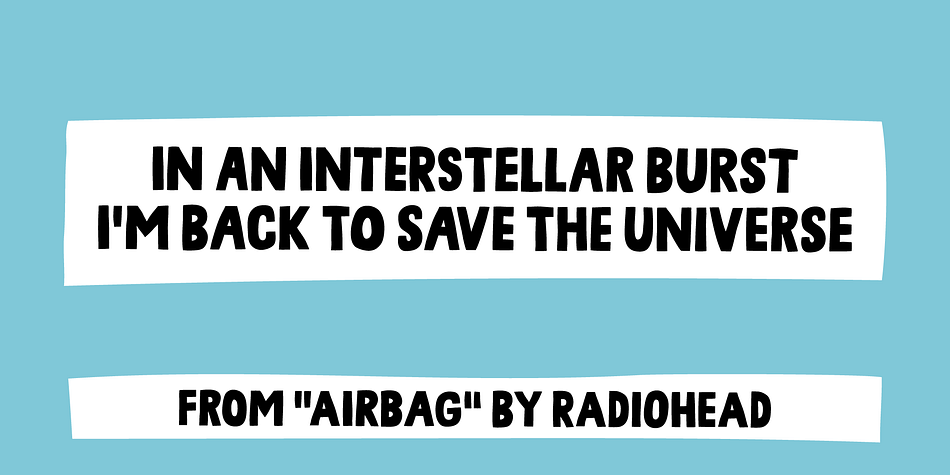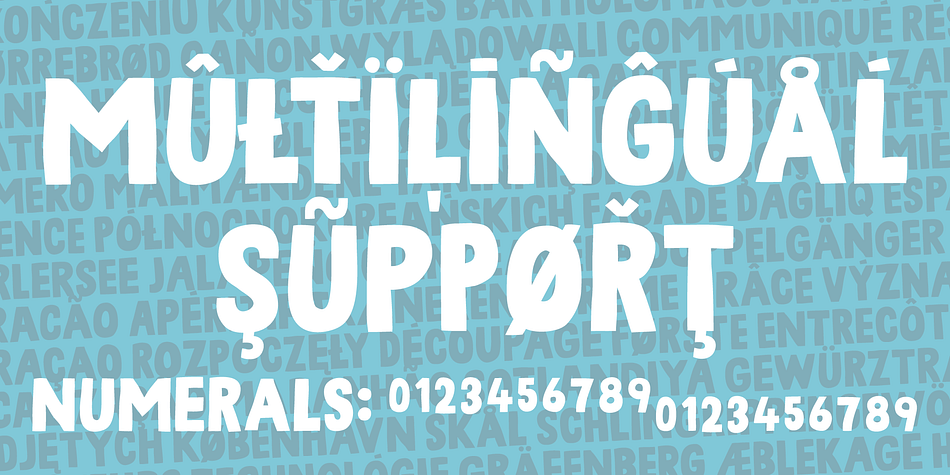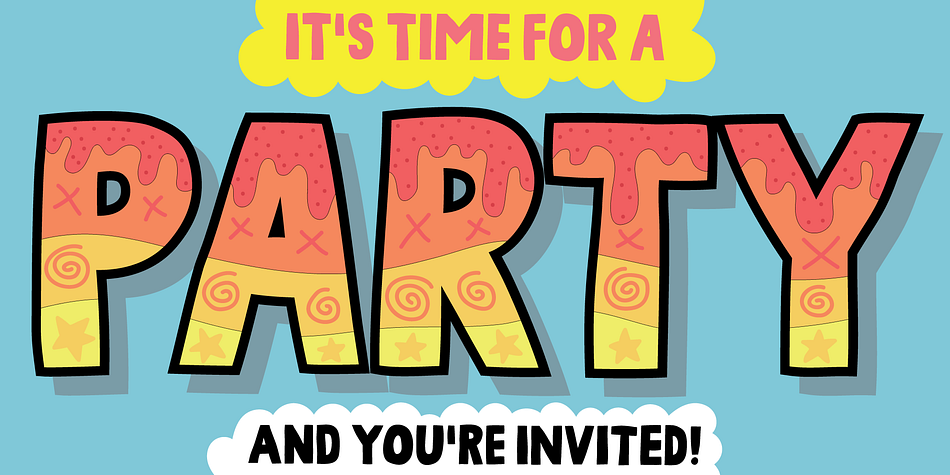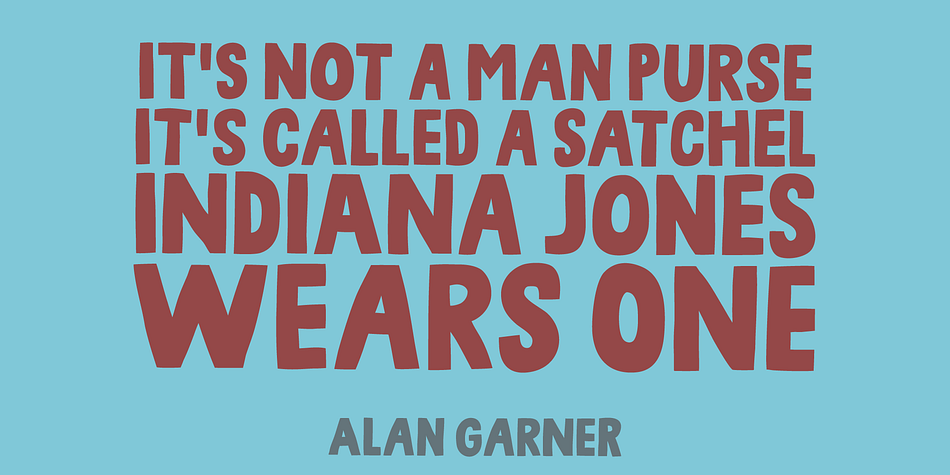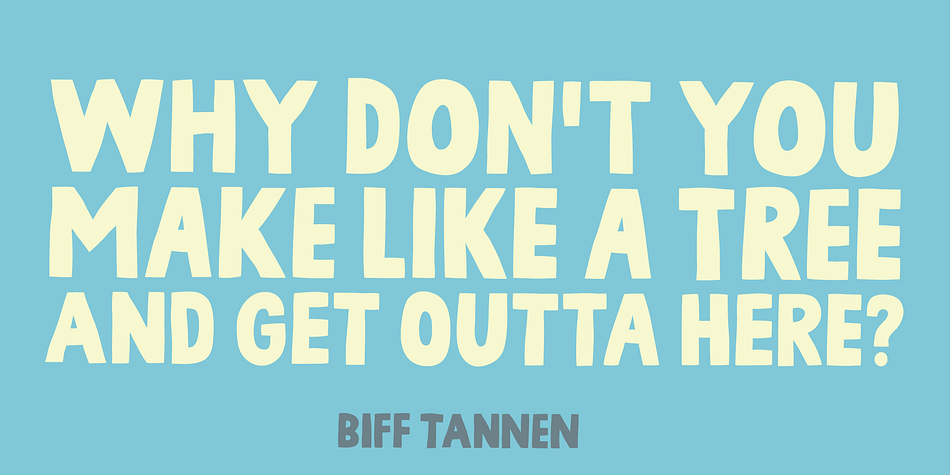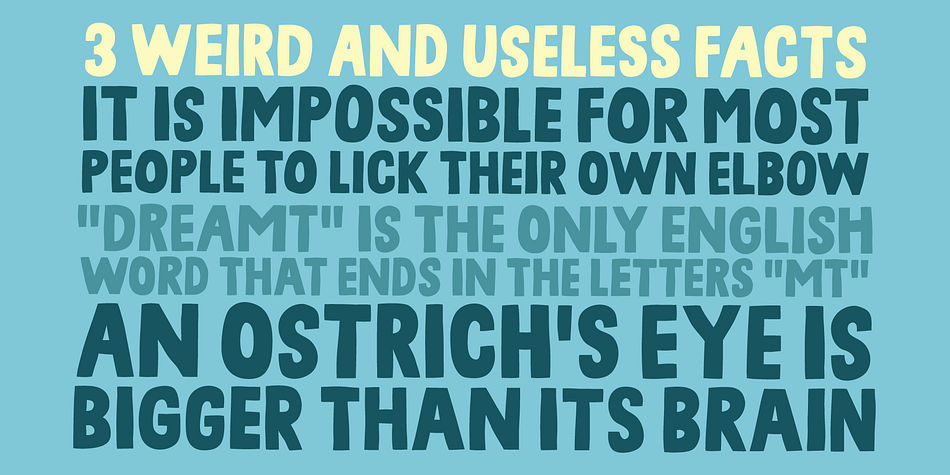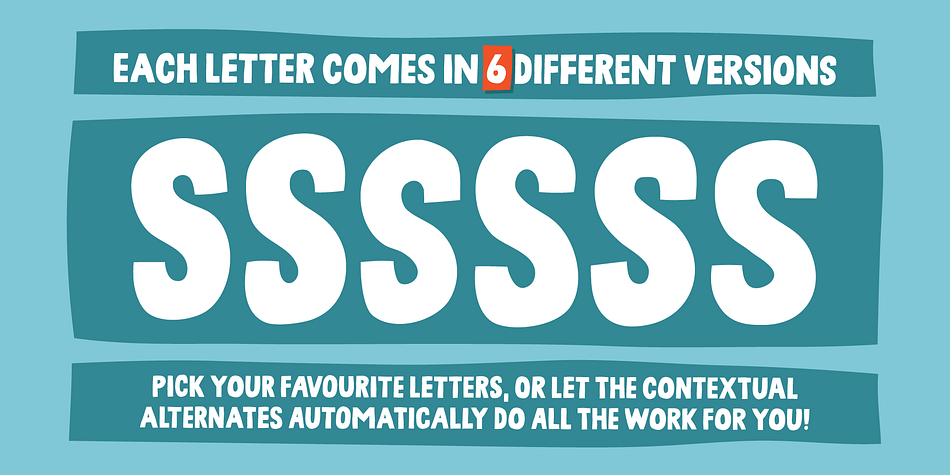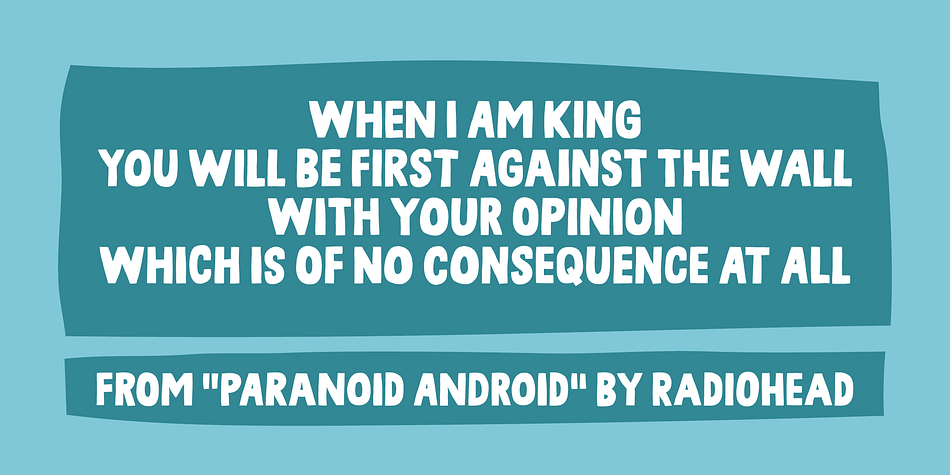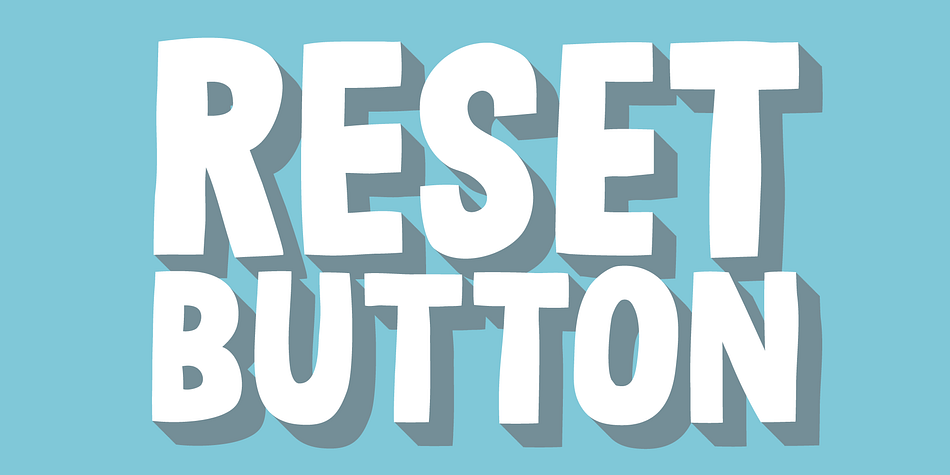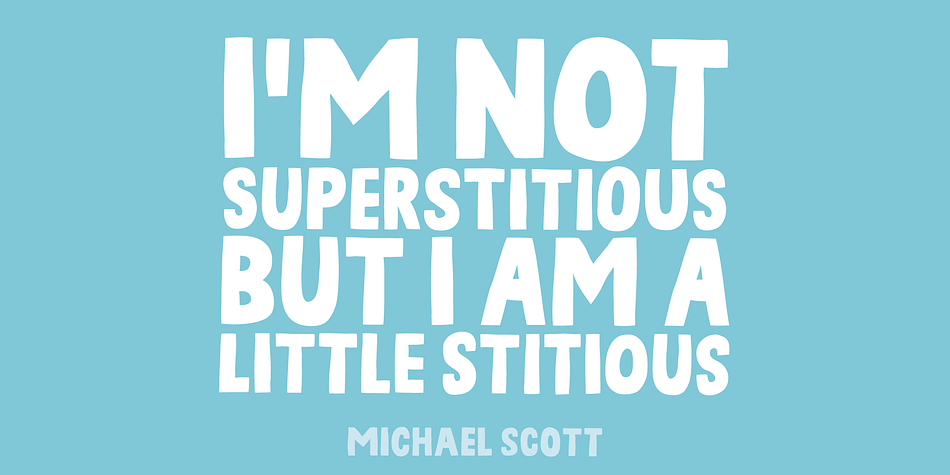
Designed by Jakob Fischer, Reset Button is a hand display font family. This typeface has two styles and was published by Bogstav.
Reset Button
Say hello to my handmade ALL-CAPS headline font!
I’ve made 6 different versions of each letter, making the text even more energetic and organic looking - and you don’t have to do anything but type - the Contextual Alternates will do the cycling of letters for you!